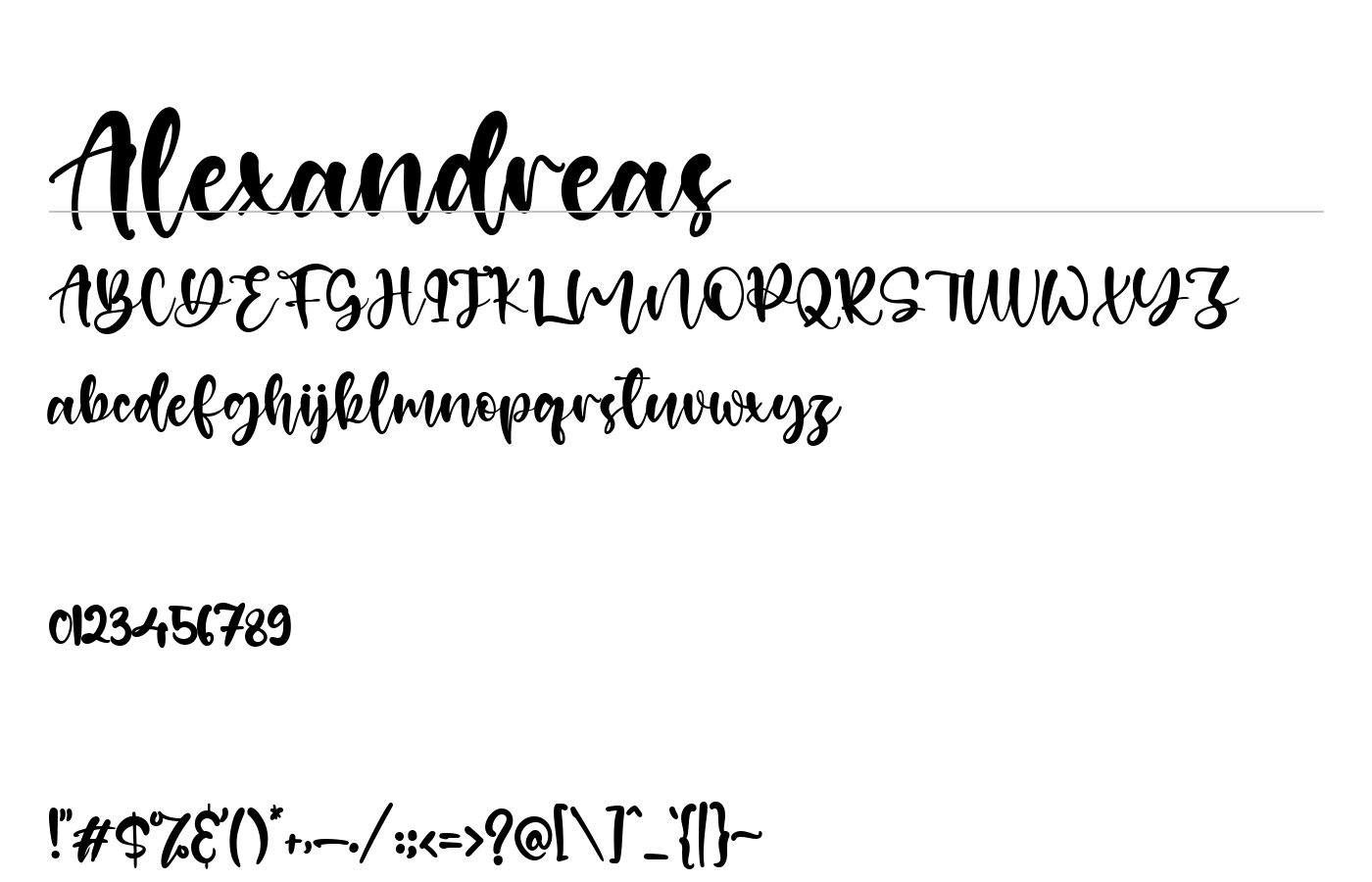
Alexandreas is a lively and elegant script font with a hand-lettered feel, featuring smooth, bold strokes and a casual yet refined style. Its rich, brush-like texture combined with flowing connections makes it perfect for creative branding, invitations, and expressive headlines where a personal, artistic touch is desired. This font shines in designs that seek warmth and charm while maintaining readability and a modern flair.
Alexandreas Font
About Alexandreas Font